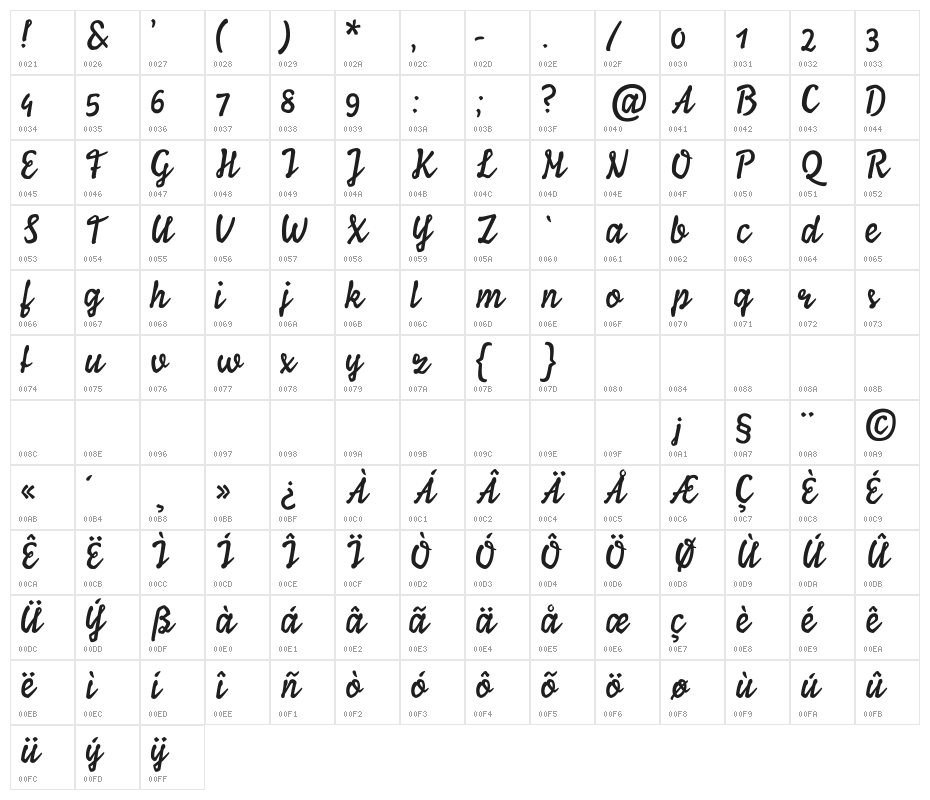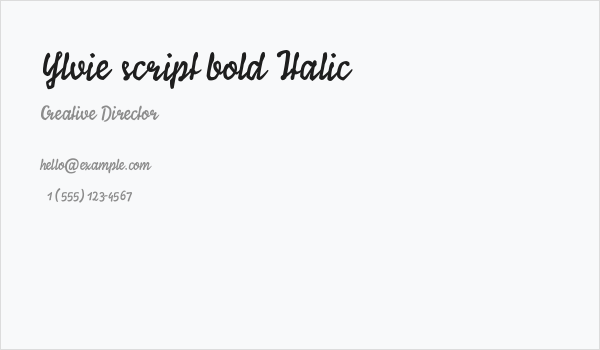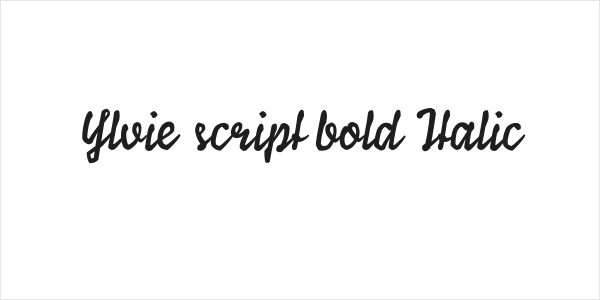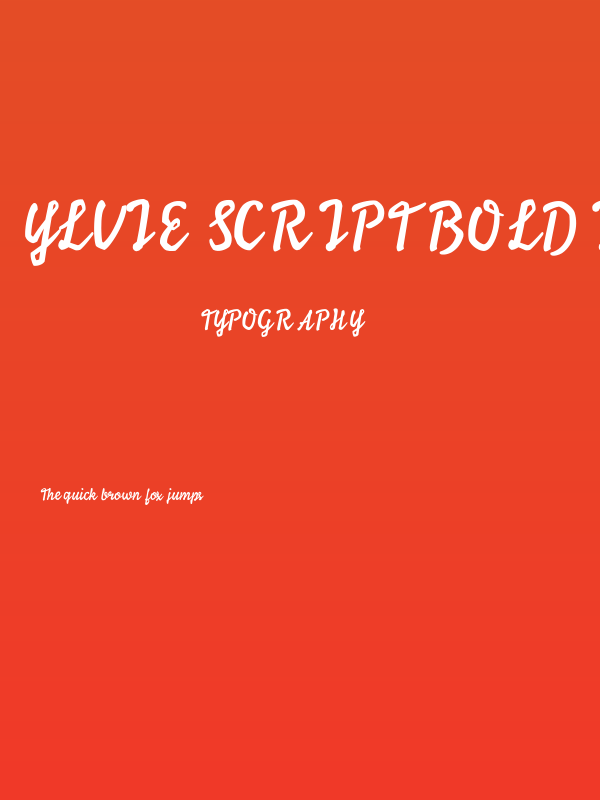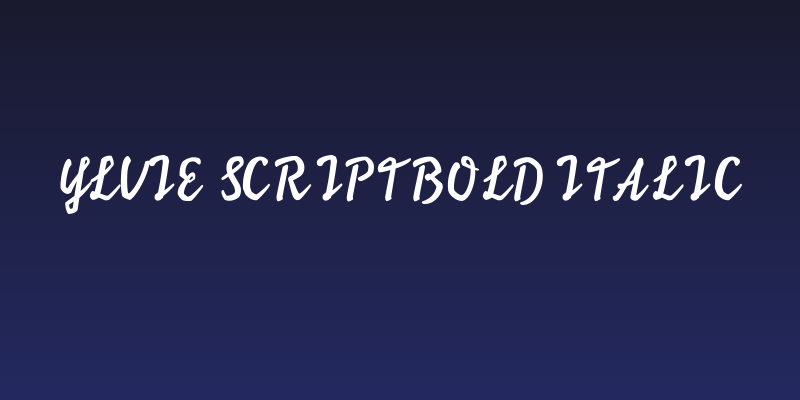
Ylvie script bold Italic Font
Ylvie script bold Italic Description
This script font exudes a bold and dynamic presence, characterized by its flowing, cursive style that mimics natural handwriting. The letters are connected, creating a seamless and elegant appearance. The bold weight of the strokes adds a sense of confidence and strength, while the italic slant gives it a sense of movement and fluidity. The uppercase and lowercase letters are well-proportioned, maintaining readability despite the decorative style. The numerals and special characters are consistent with the overall aesthetic, ensuring a cohesive look across all text elements. This font is perfect for projects that require a personal touch or a sense of sophistication.